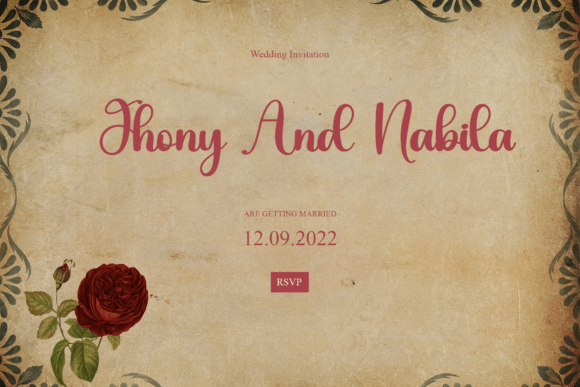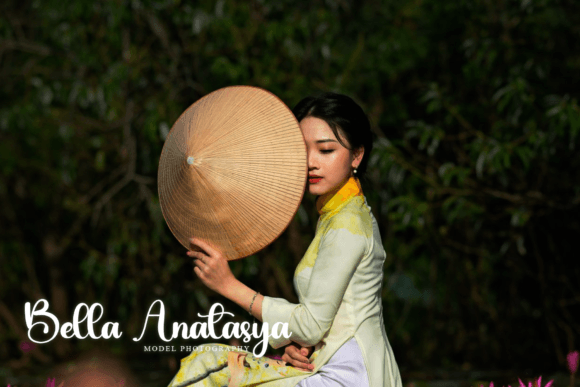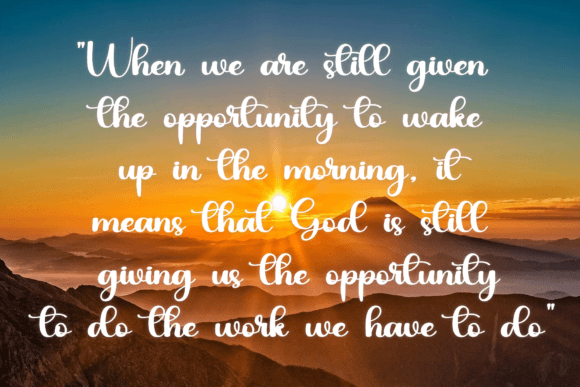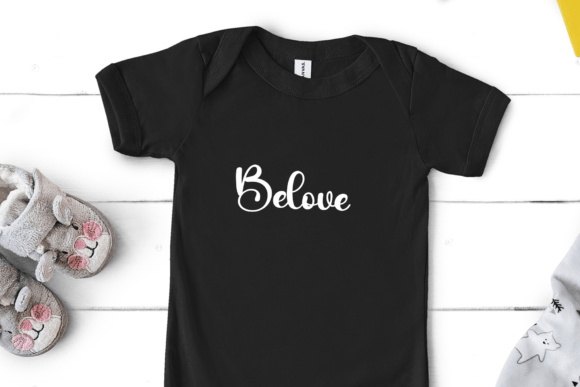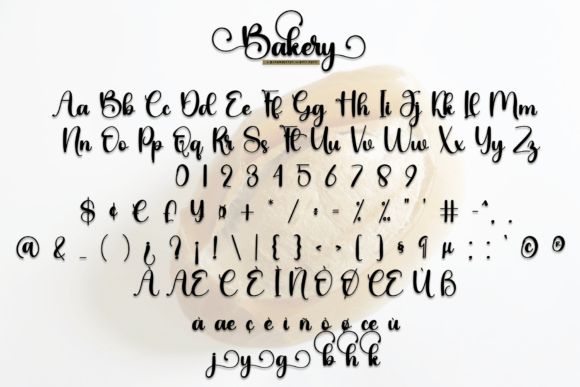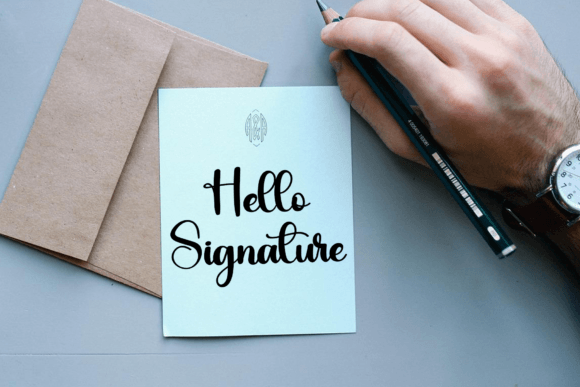
The Sweet Taste of Typography: Discovering Bakery Font
Imagine strolling through a charming bakery on a lazy Sunday morning, surrounded by the heavenly aroma of freshly baked goods and the soft glow of warm lighting. As you browse the display case, your eyes land on a beautifully crafted wedding invitation, its elegant script and delicate flourishes catching your attention. This is where the magic of Bakery Font comes in – a sophisticated and feminine typeface designed to elevate your creative projects to the next level.
Whether you’re a designer, artist, or small business owner, Bakery Font is a valuable addition to your toolkit. Its versatility makes it perfect for a wide range of applications, from wedding stationery and invitations to packaging and social media posts. With Bakery Font, you’ll be able to add a touch of whimsy and romance to your designs, setting you apart from the crowd and making your creations truly unforgettable.
Bakery Font Key Features
- Font Style: Bakery Font is a beautiful, hand-drawn script font with a warm and inviting feel, perfect for bakery logos, packaging, and advertising.
- Character Count: The font contains 248 characters, including uppercase and lowercase letters, numbers, and punctuation marks.
- Unique Characteristics: Bakery Font features a unique, hand-drawn design with subtle imperfections and texture, giving it a truly authentic feel.
Bakery Font Review
I recently had the chance to work with the Bakery Font, and here’s my honest take on it.
- It’s a beautiful, handcrafted font that’s perfect for food and baking-related projects.
- The font has a lot of personality and feels very unique.
- It’s great for creating a warm and inviting atmosphere in your designs.
- The font is also very versatile and can be used in a variety of contexts, from logos to menus.
- The font may be a bit too ornate for some designs, which could make it difficult to read.
- The font doesn’t come with a lot of variation, which could limit its use in certain contexts.
- The font is also not very scalable, which could cause it to lose its quality when used at large sizes.
Overall, I think the Bakery Font is a great choice for designers who want to add a unique touch to their food and baking-related projects. While it may have some limitations, I think its personality and versatility make it worth considering.
For a more authentic bakery look, pair the font with a distressed or vintage filter.
Use the Bakery Font in conjunction with custom illustrations or graphics to create a cohesive bakery brand.
Use the Bakery Font to create eye-catching headers and titles for your bakery promotions.
The Bakery Font is perfect for:
- Bakery branding and marketing materials
- Food packaging and labels
- Catering and event promotions
- Restaurant menus and signage
Alternatives to Bakery Font for Designers
Great Vibes is a beautiful, cursive script font perfect for creating a warm and inviting atmosphere. It is ideal for use in logos, branding materials, and packaging design. This font is more elegant and refined compared to Bakery Font, making it suitable for high-end designs.
Carolyna Pro is a modern, elegant script font that works well in a variety of design contexts. It is ideal for use in fashion, beauty, and lifestyle branding. Compared to Bakery Font, Carolyna Pro has a more sophisticated and polished look, making it suitable for luxury brands.
Alex Brush is a elegant, handwritten font that is perfect for creating a personal and approachable feel. It is ideal for use in wedding invitations, stationery, and other design projects where a touch of warmth is needed. Alex Brush has a more rustic and organic feel compared to Bakery Font, making it suitable for more casual designs.